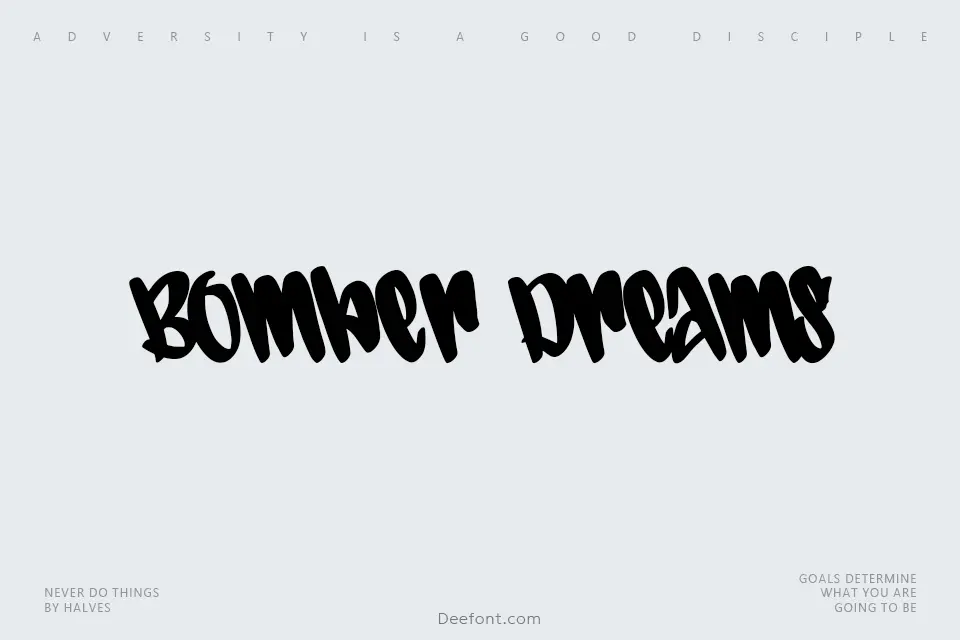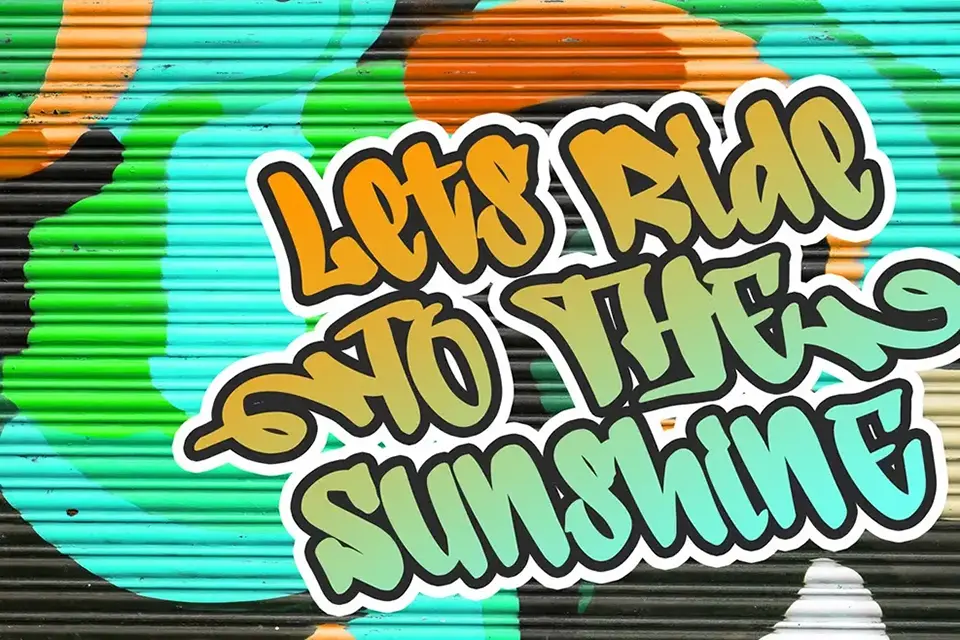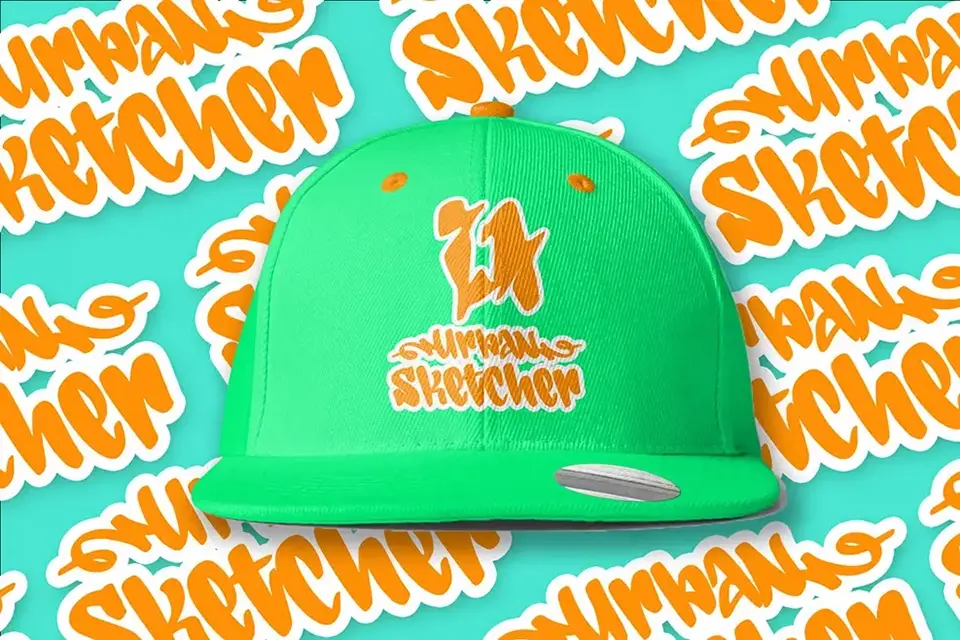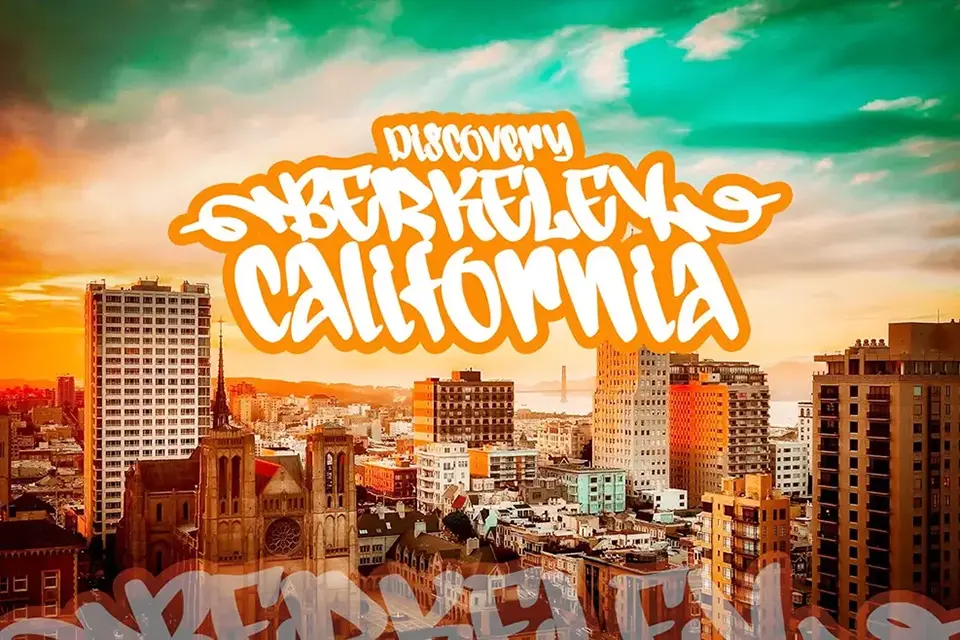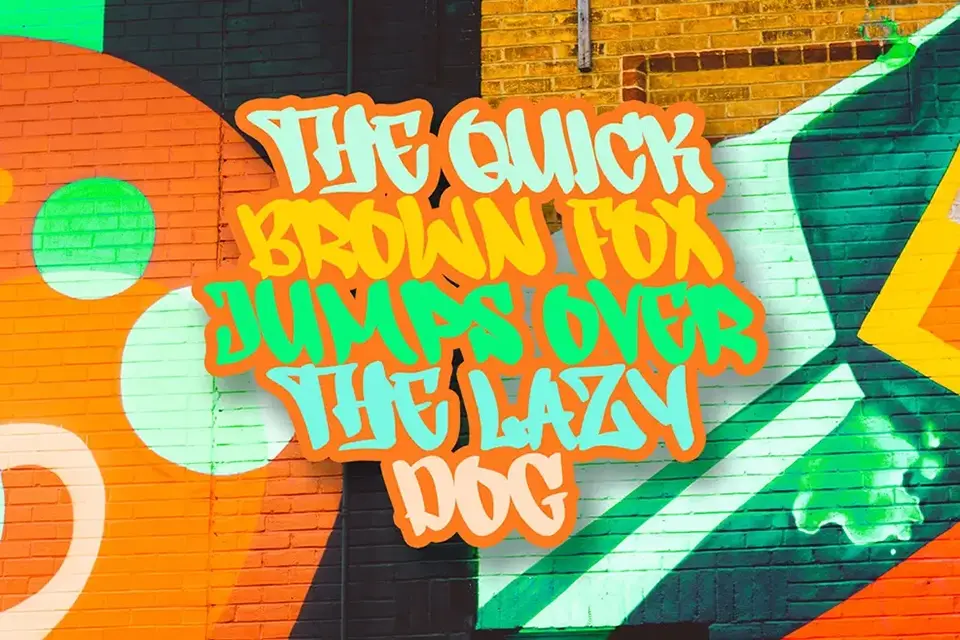
Bomber Dreams Font
Bomber Dreams is a bold and modern graffiti-inspired display font designed to bring street-style vibrancy to your creative projects. With its distinctive brush strokes and urban aesthetic, this versatile typeface excels in logos, social media branding, packaging design, and eye-catching typographic compositions. Supporting multiple languages and featuring stylistic sets and ligatures, Bomber Dreams offers designers an effective tool for creating contemporary, impactful visual communications.